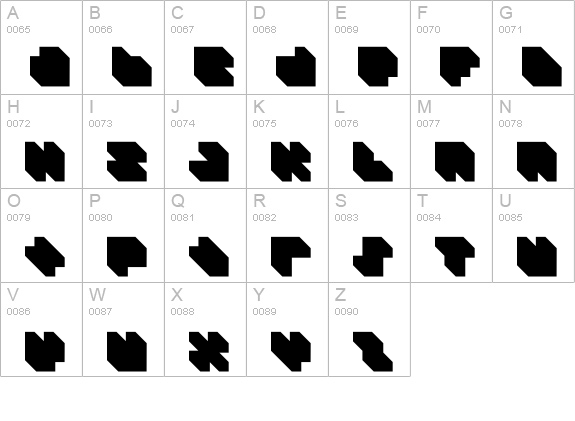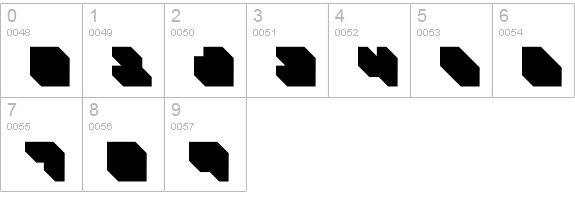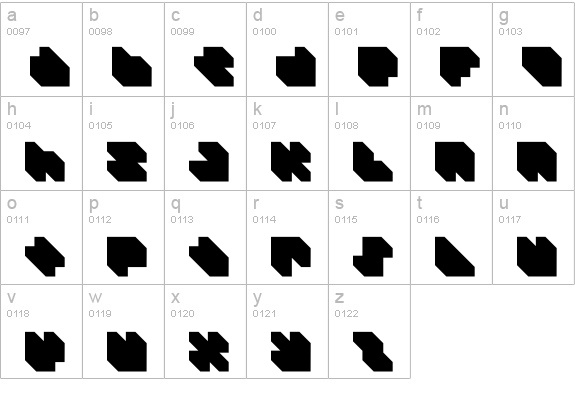
DS P9RMX3D Font Details
DS P9RMX3D font is a modern and stylish typeface that exudes sophistication and professionalism. Its geometric shapes and intricate details make it perfect for a wide range of design projects, from branding to editorial design. This font offers a unique 3D effect that adds depth and dimension to your text, making it stand out from the crowd. What sets DS P9RMX3D font apart is that it is available for free download at FontsMarket.com. This means you can easily access this high-quality font without any cost, making it a valuable addition to your font collection. Whether you're a designer looking to elevate your projects or a business owner seeking a distinctive font for your branding, DS P9RMX3D font is a versatile choice that won't disappoint. Download it today and bring your designs to the next level with this eye-catching typeface.